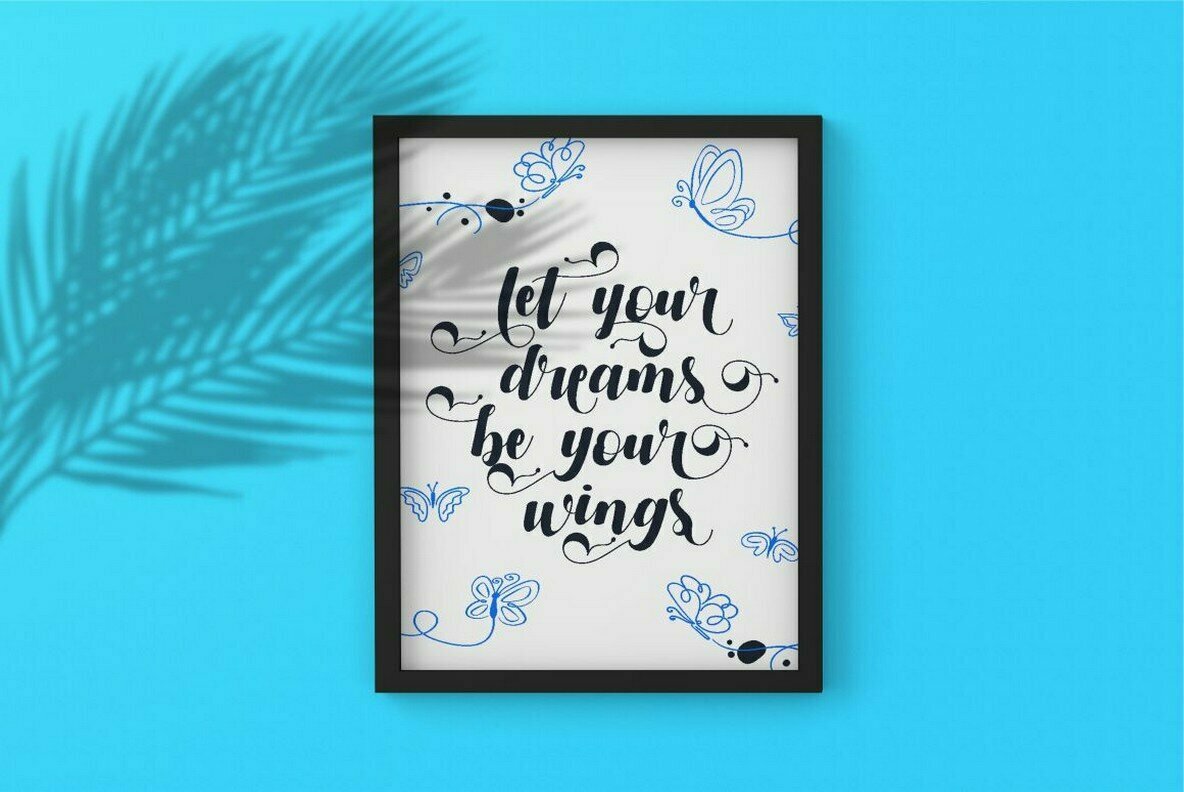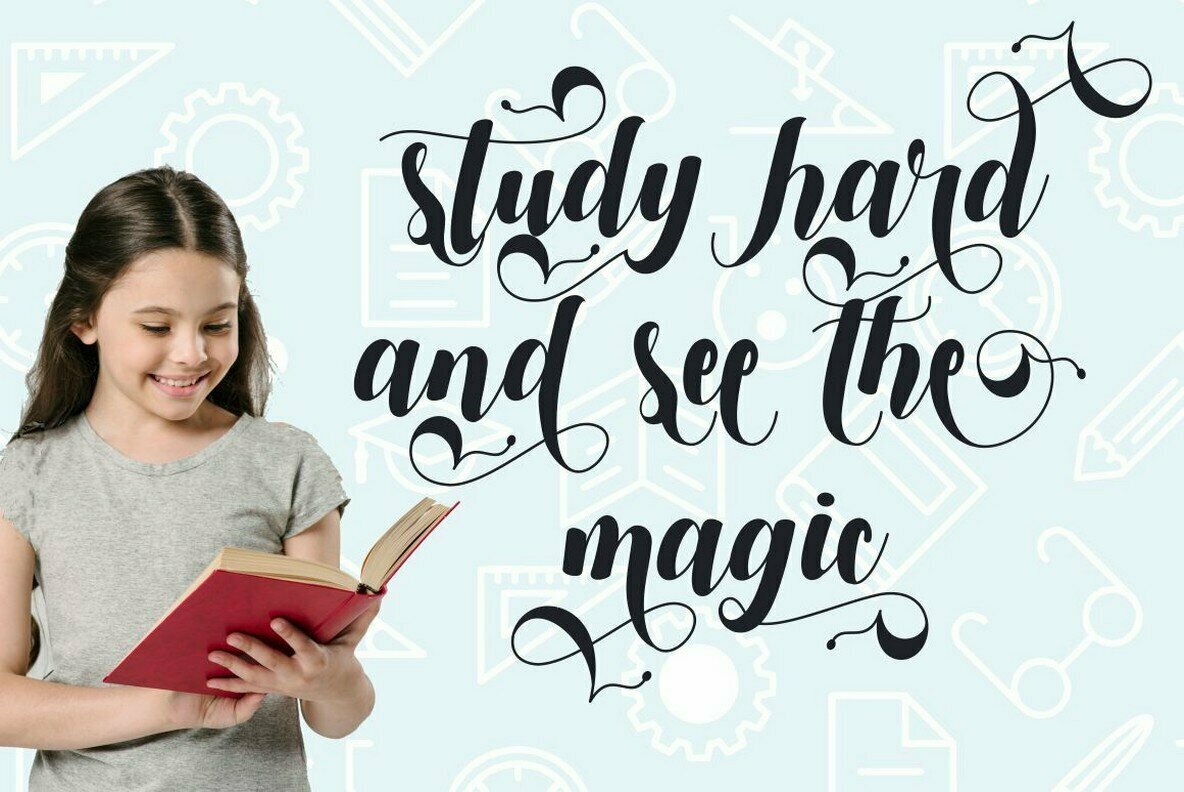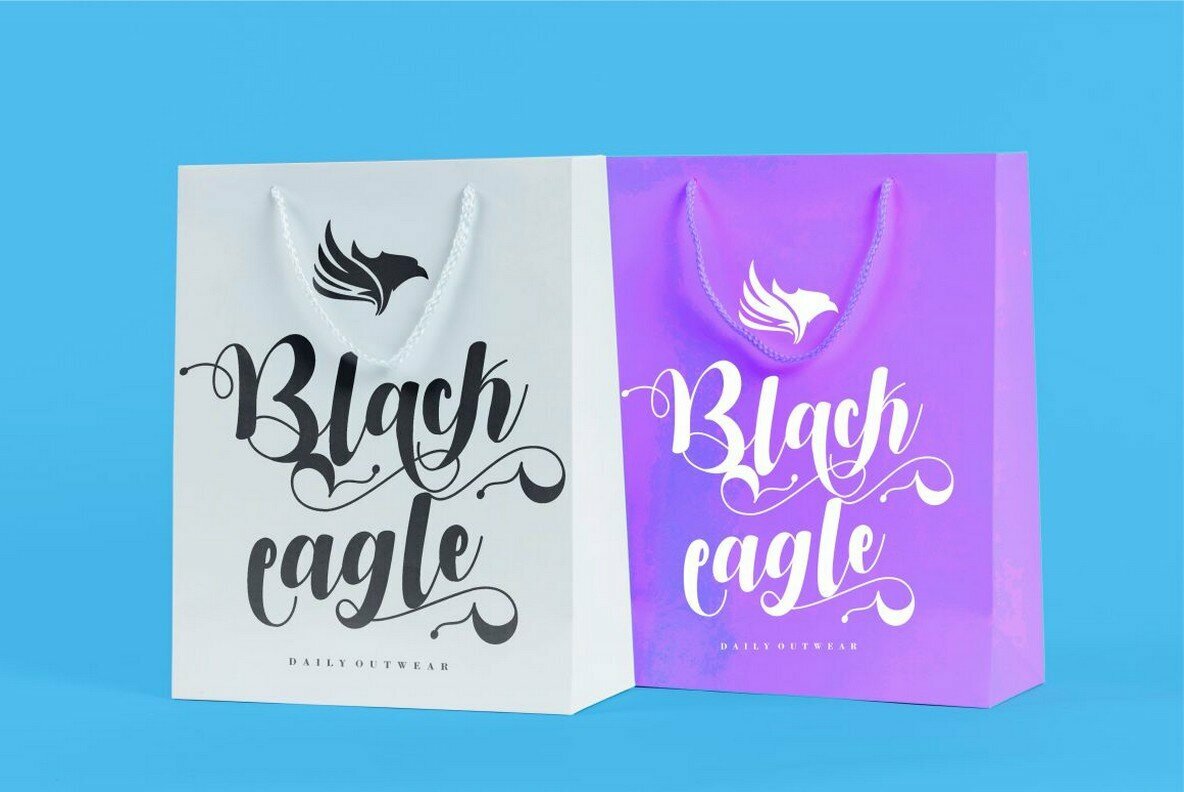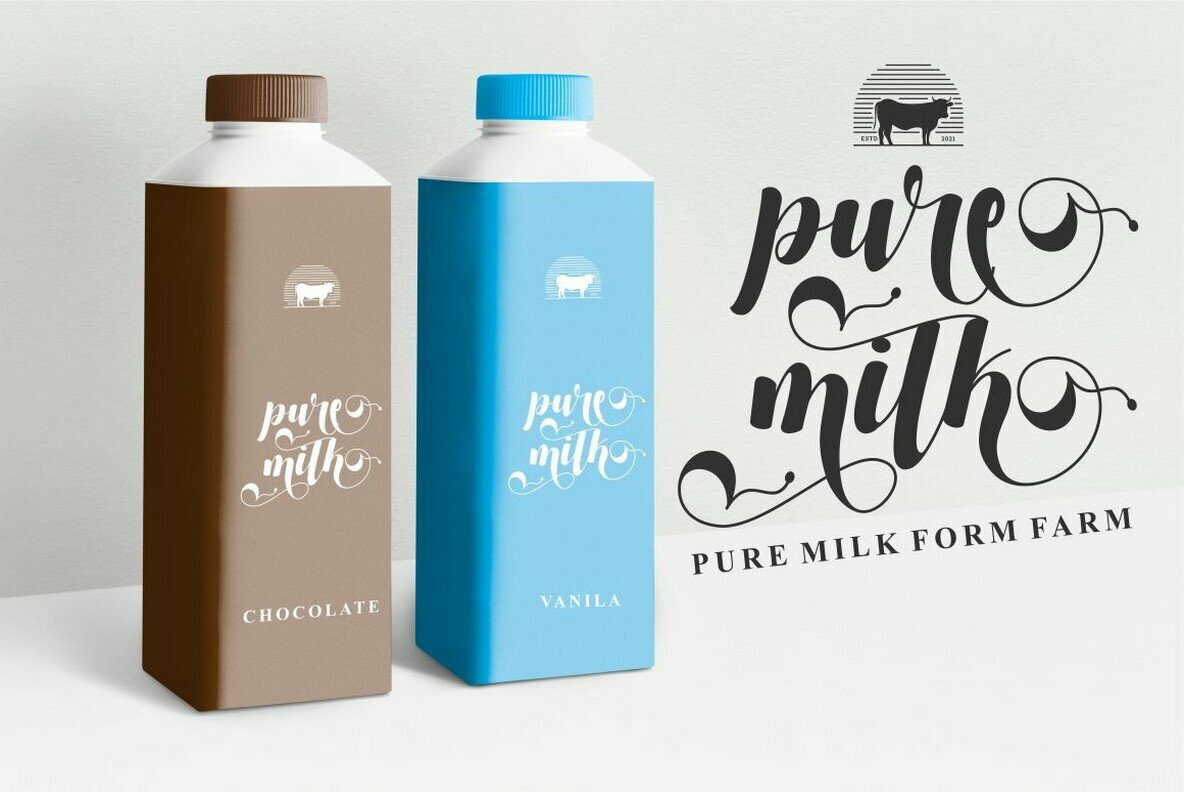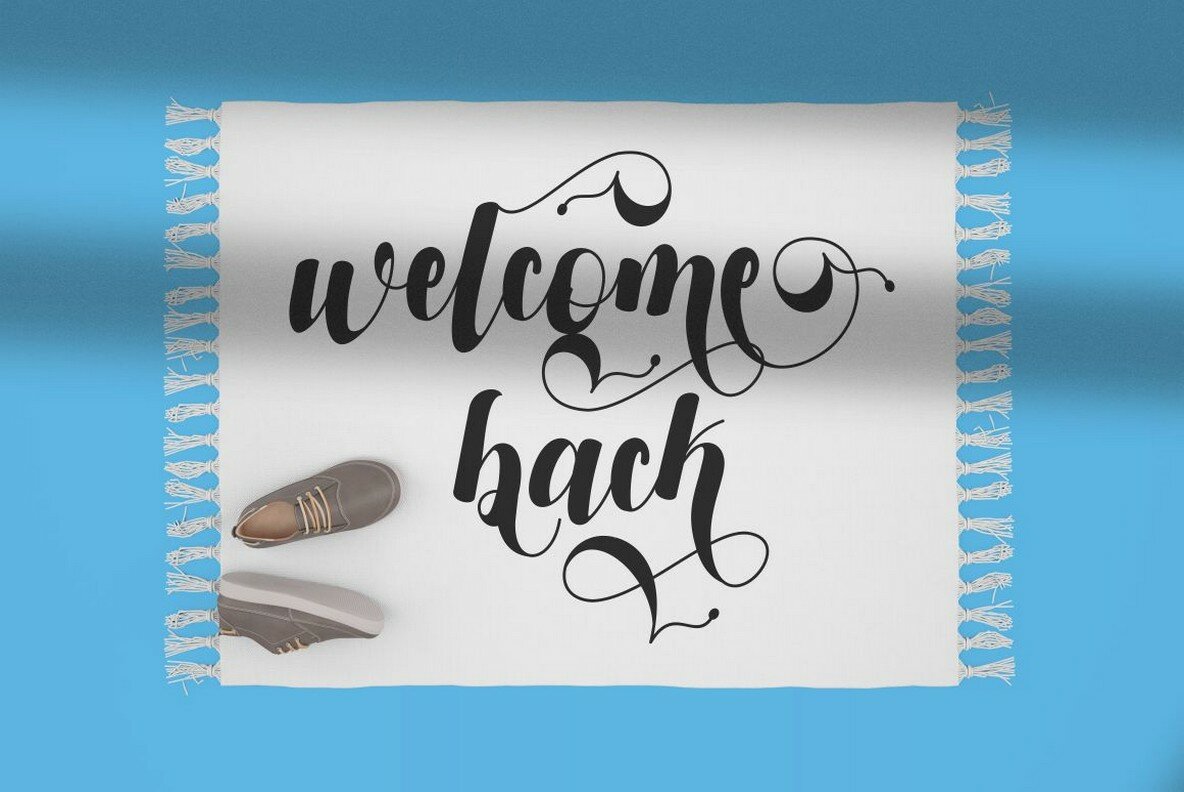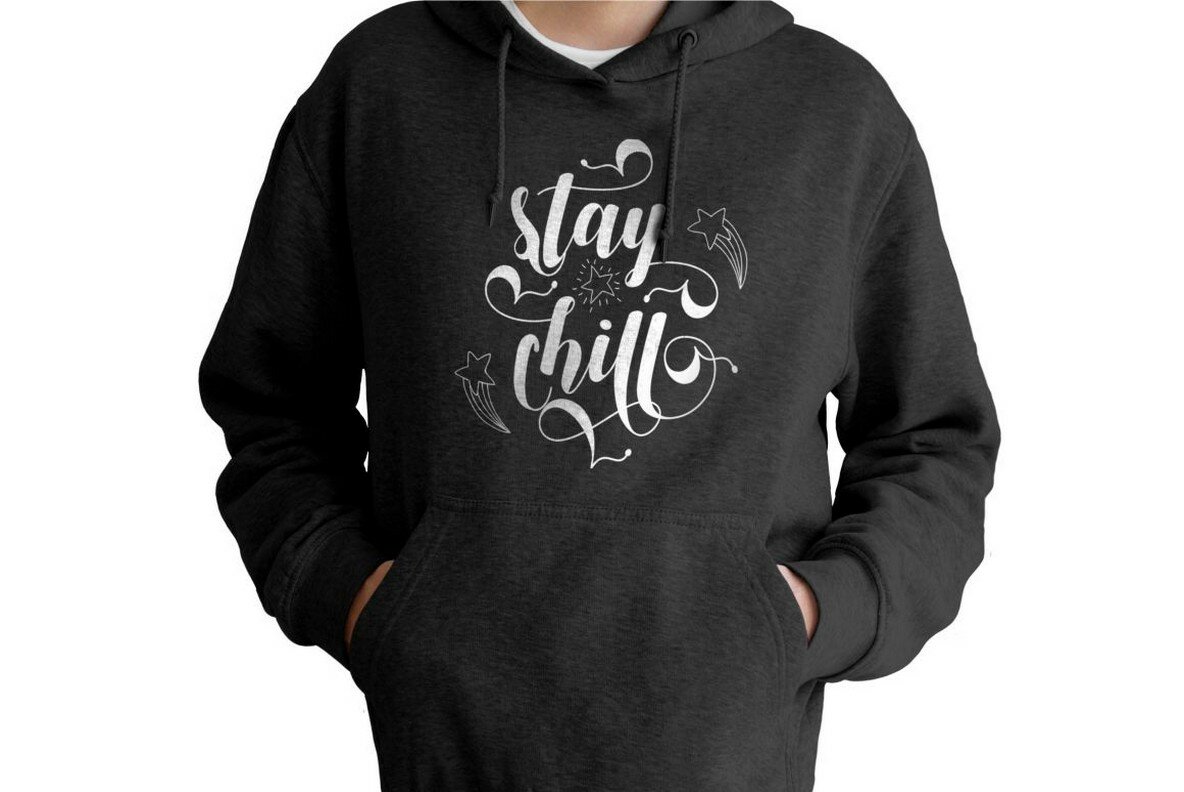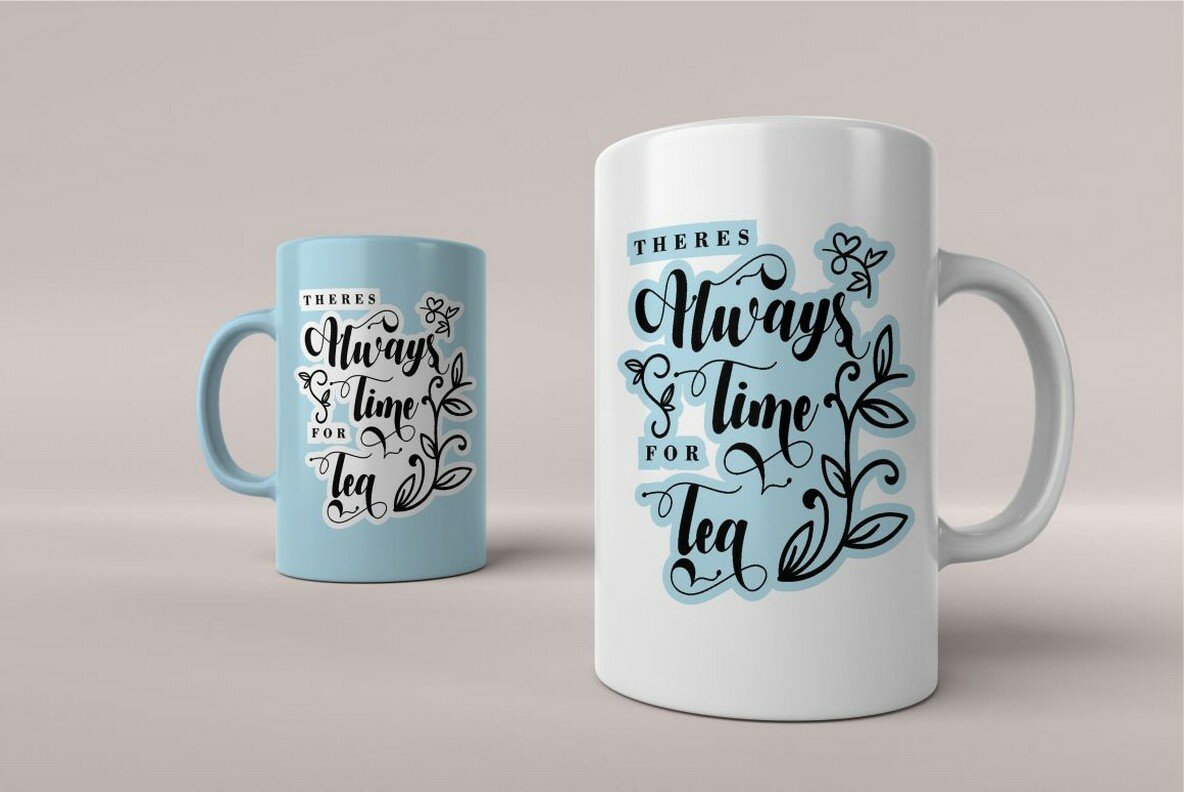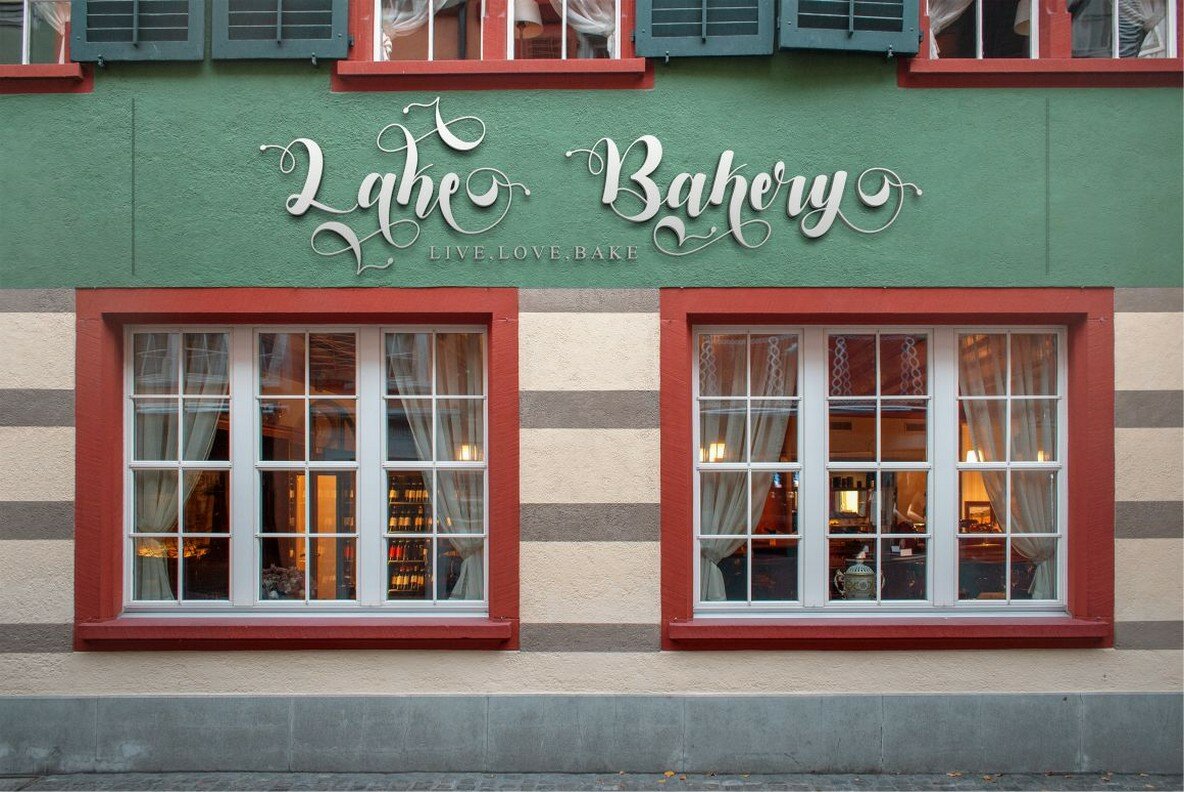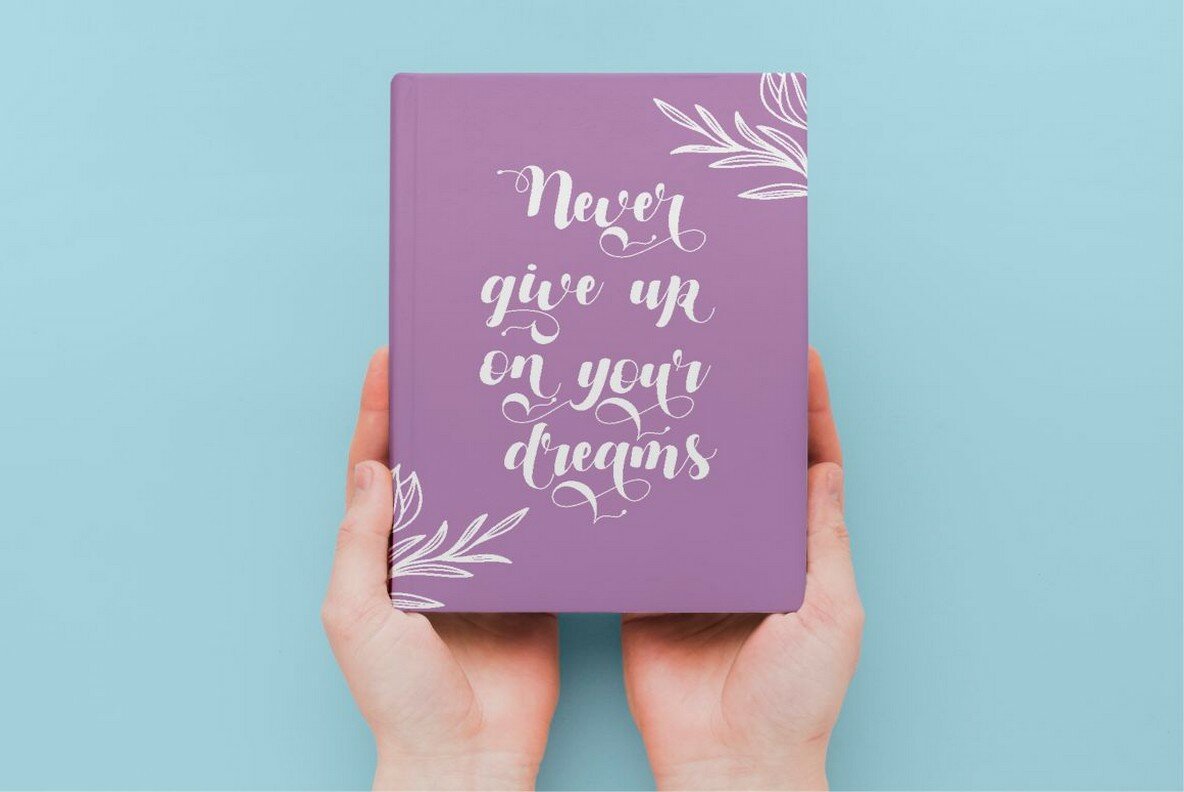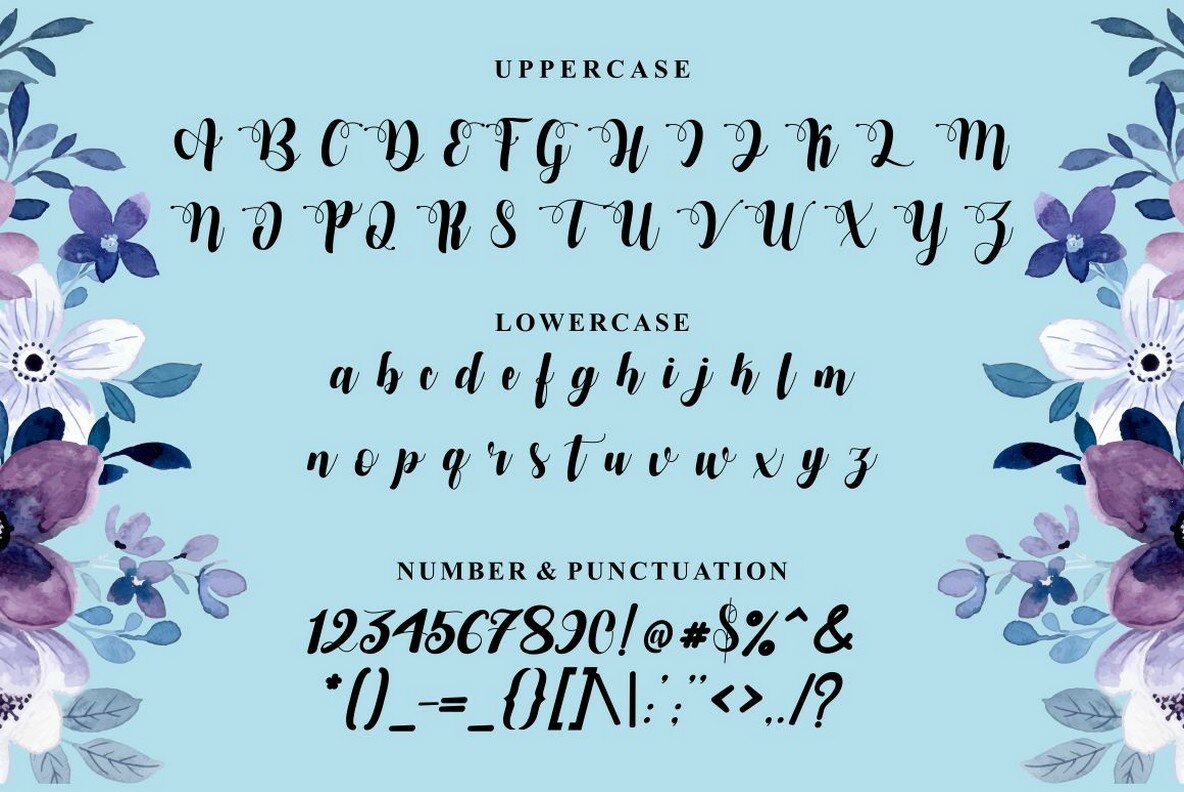
Twilight Blossom Font
Twilight Blossom
Twilight Blossom is a delightful script font designed with modern calligraphy and a playful, bouncy style. Its flowing swashes make any project visually compelling, adding an enchanting touch of elegance and charm. This versatile font is perfect for applications ranging from logos and branding to posters and product packaging, offering a fresh and dynamic aesthetic to your creative endeavors. Designed to integrate seamlessly with a variety of programs and operating systems, Twilight Blossom supports tools like Procreate and Cricut, as well as Windows and macOS platforms. Its adaptable nature ensures ease of use across different creative projects and environments. Features:Twilight Blossom: A Bouncy Script Font